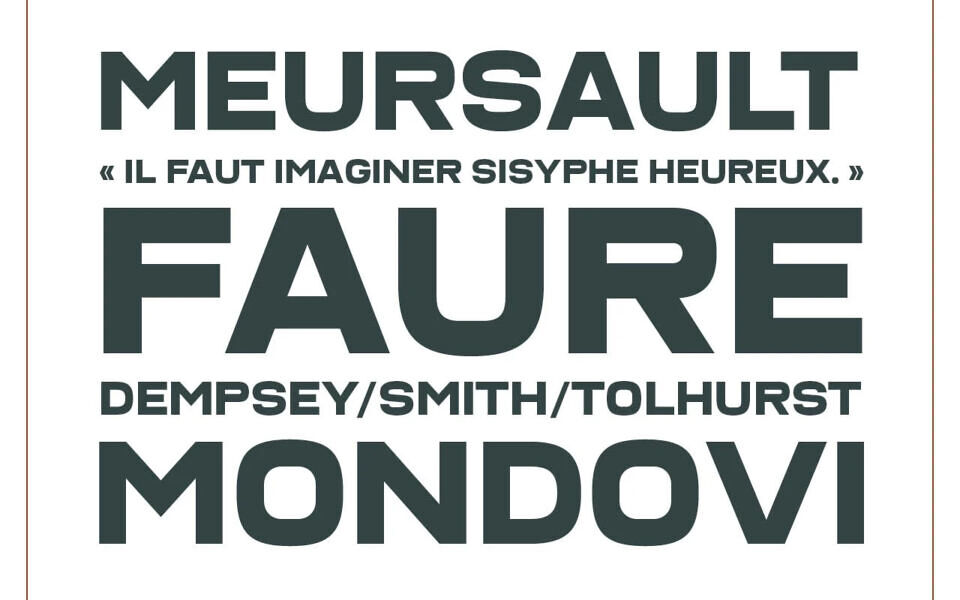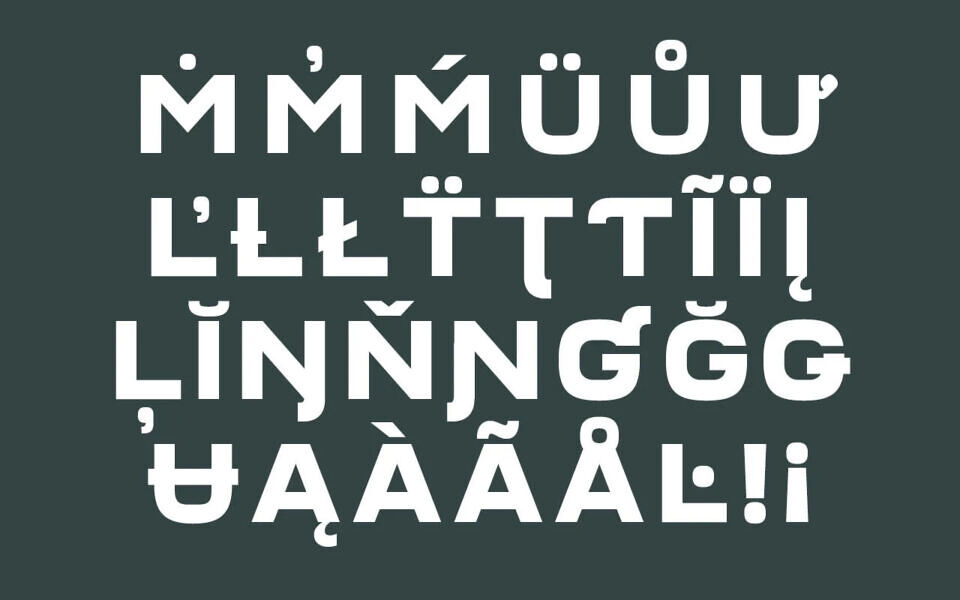
Dunkerque Font
Dunkerque is an all-caps typeface created to deliver a bold and memorable impact. Its strong, structured letterforms express confidence and force, making it ideal for headlines, logos, and branding that need to stand out.
The all-caps design enhances its commanding presence. Each letter is carefully balanced, giving the font a modern yet timeless feel. Its bold weight ensures clear readability while emphasizing strength and clarity. Dunkerque is designed to capture attention instantly, it leaves a lasting impression in both print and digital design.